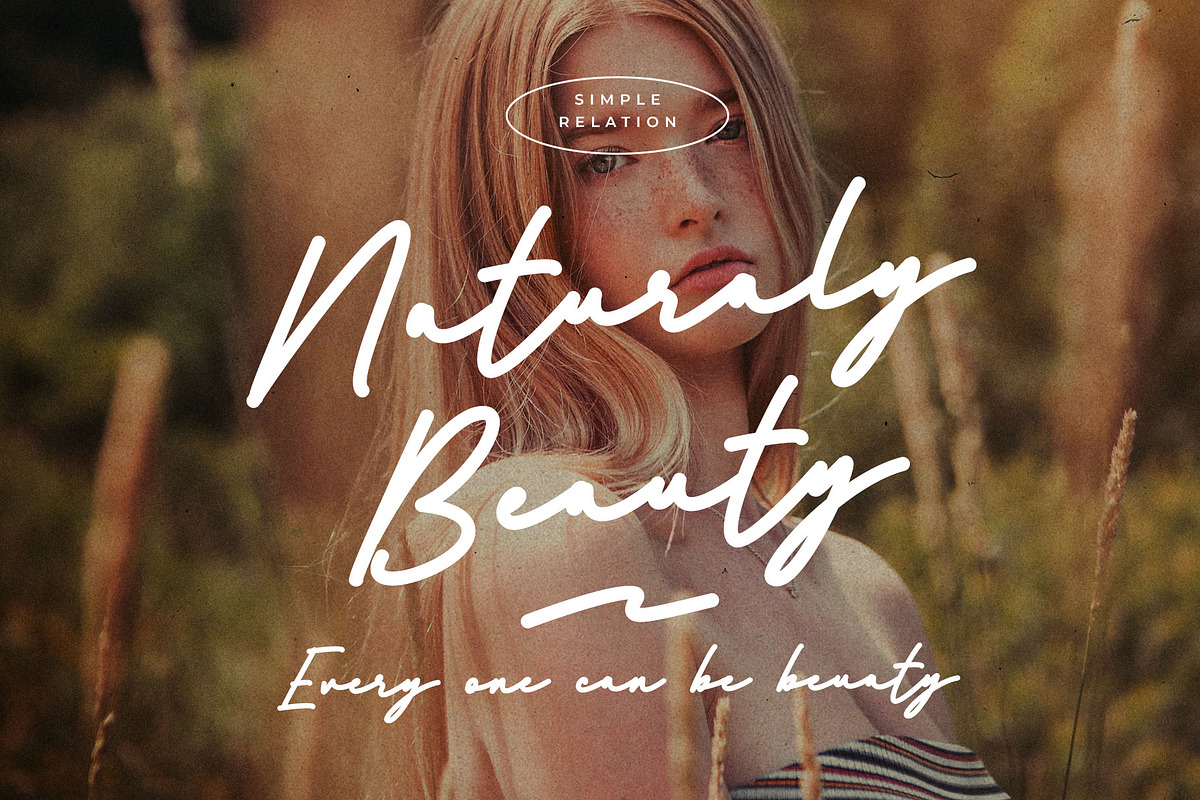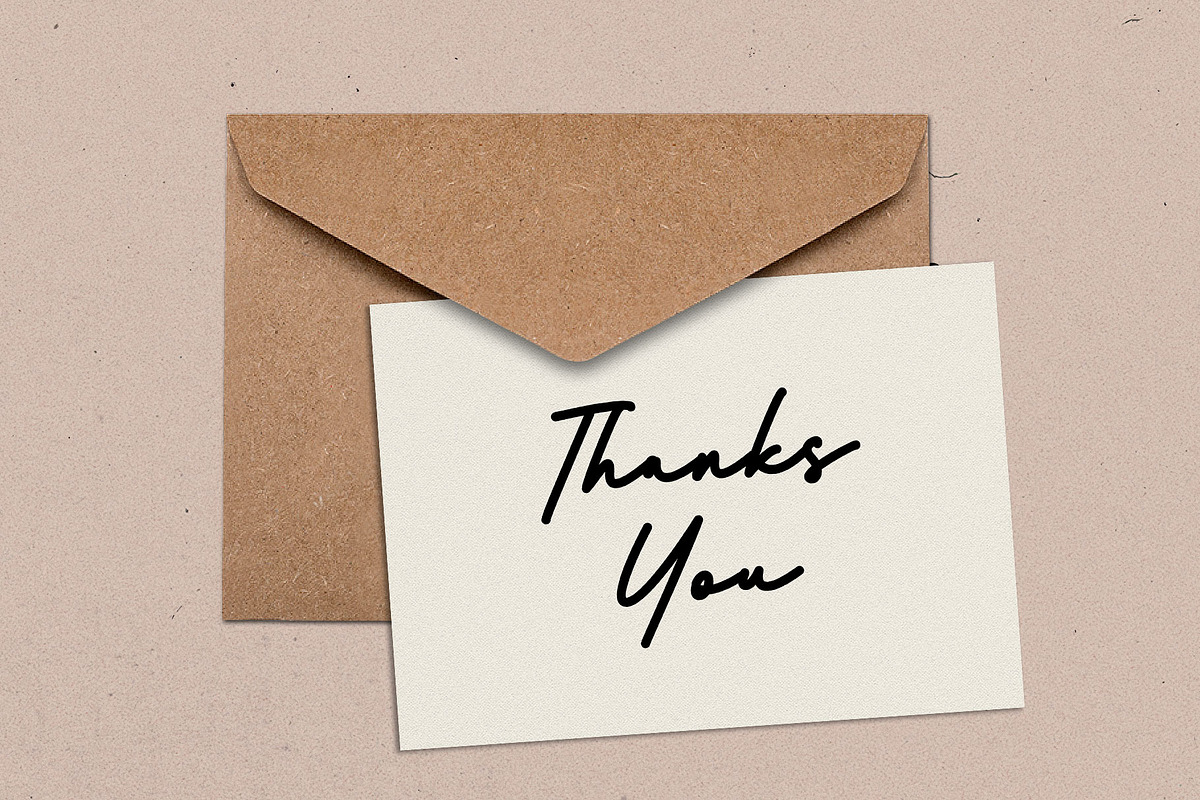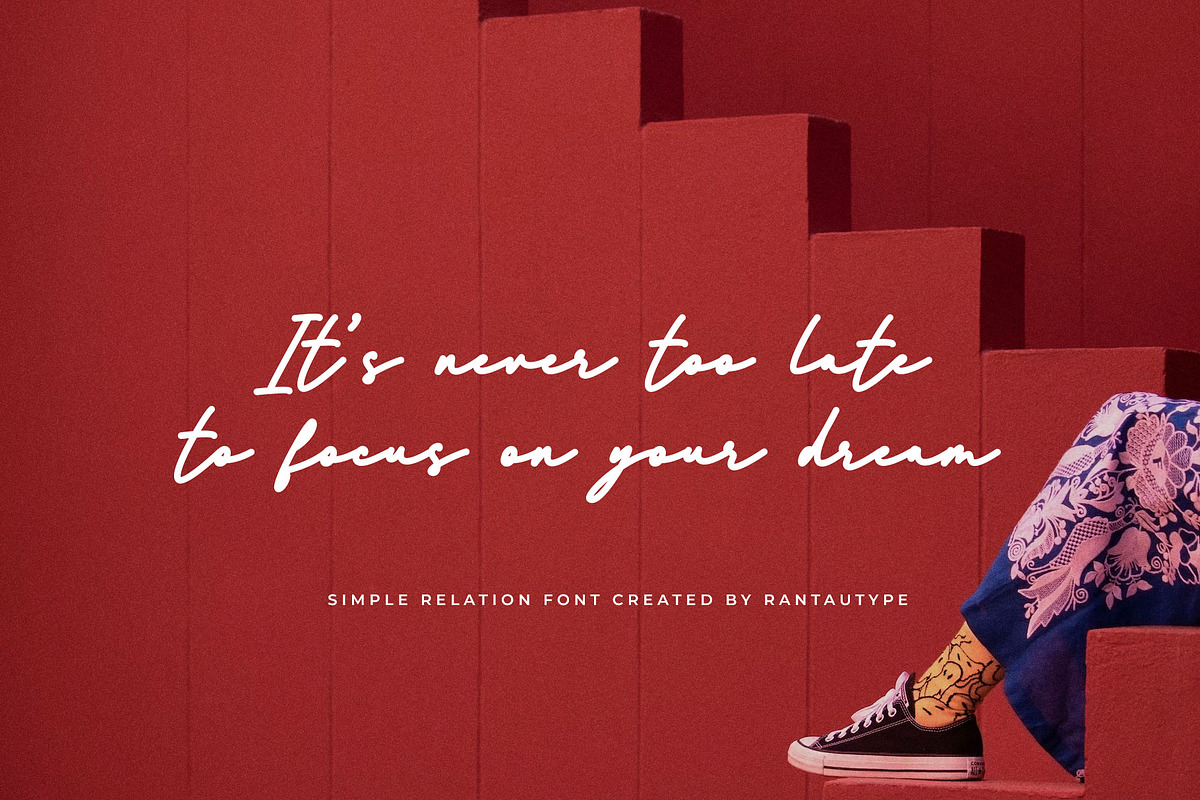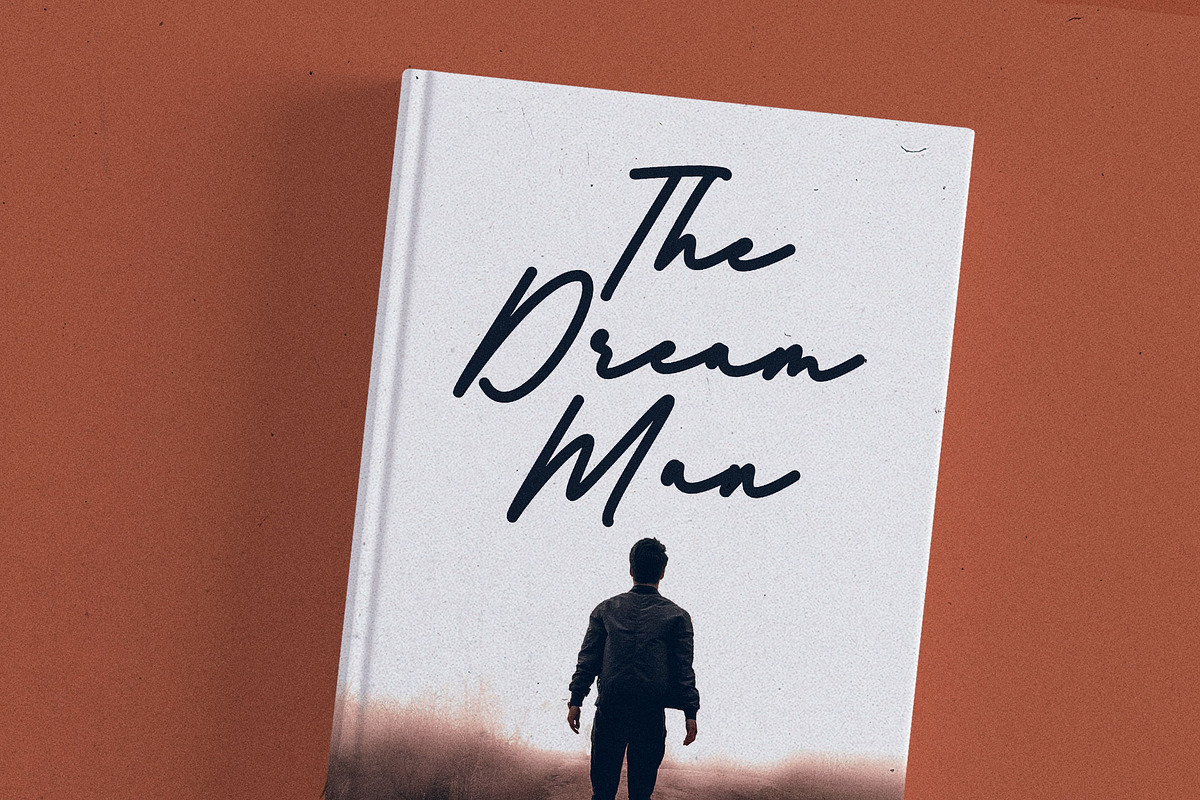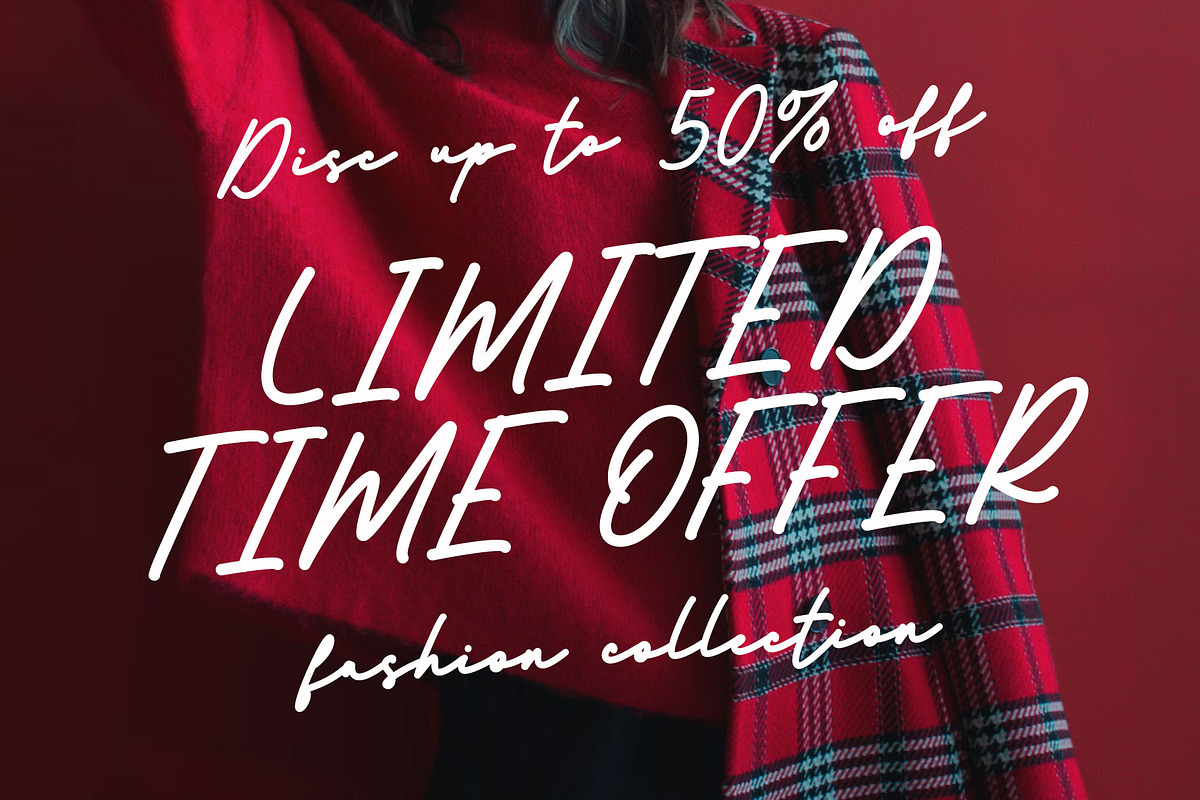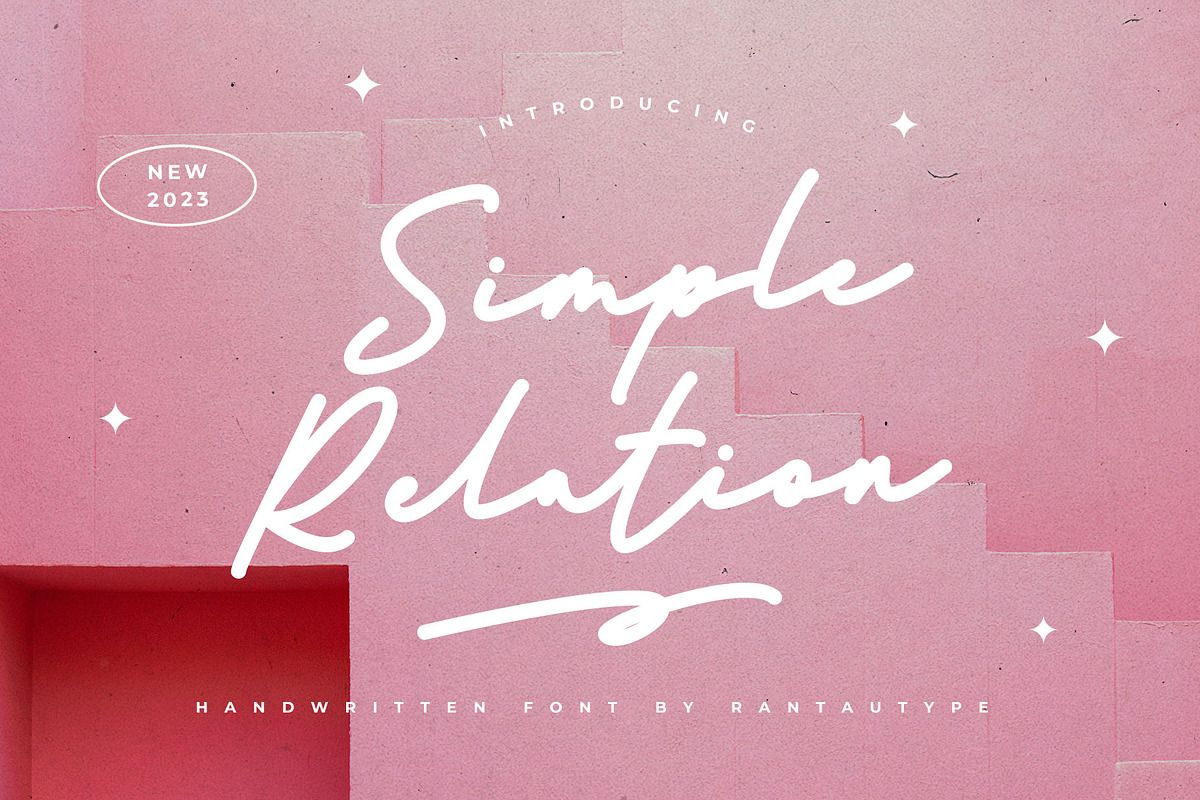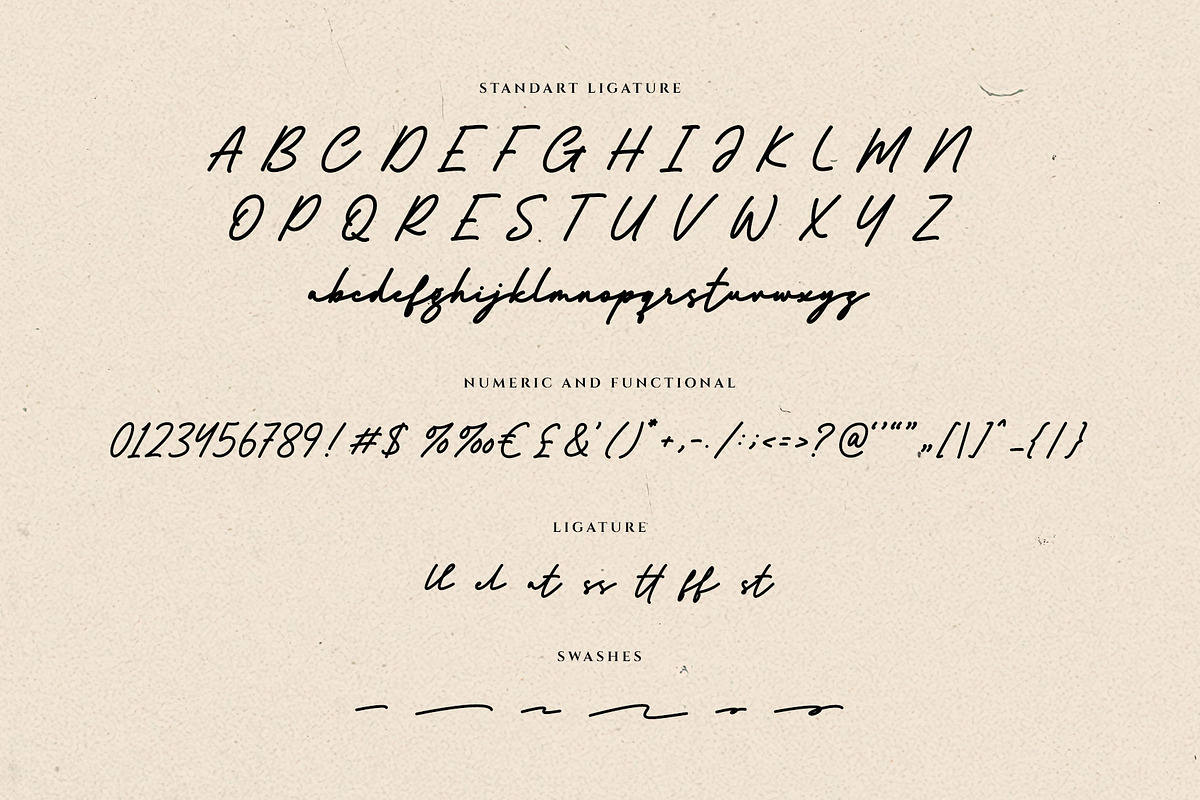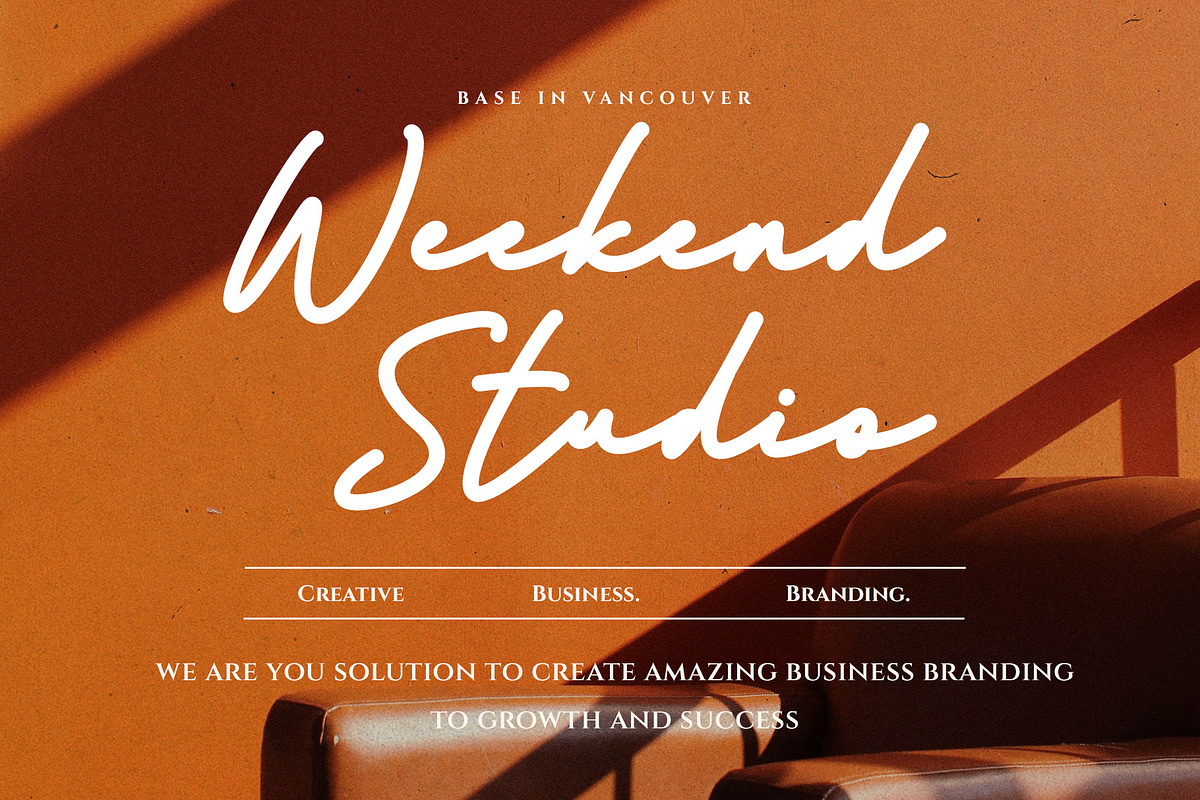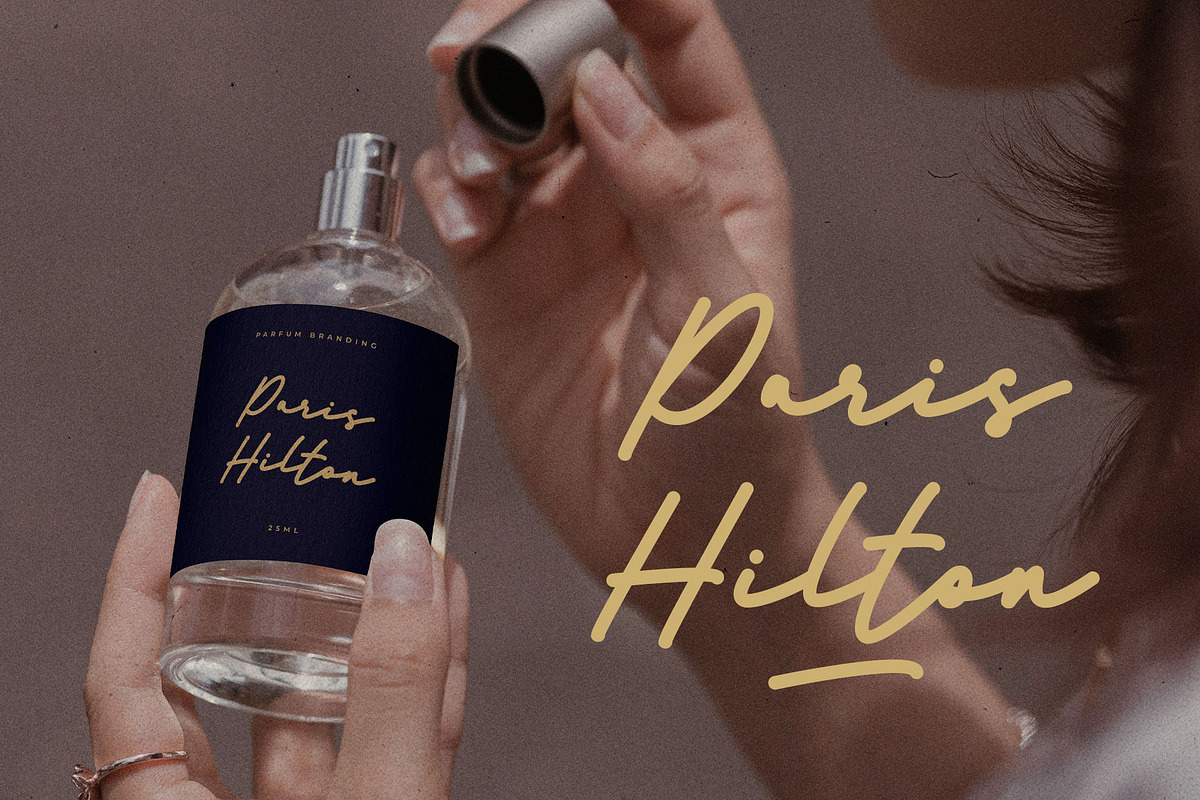
Simple Relation Modern Business Font
Simple Relation - modern style font which can be interpreted professional. We keep this font looks modern, readable, stylish, catchy and easy to use. Simple Relation also include multinggual support.
Simple Relation - is the great choice for watermark on photography, branding, wedding event, signature or signature logo design, quotes, album cover, magazine, business card and many other design project. Simple Relation here to make your work to high level!!!
- Standar character A-Z and a-z
- Ligature and swashes
- Multilinggual support